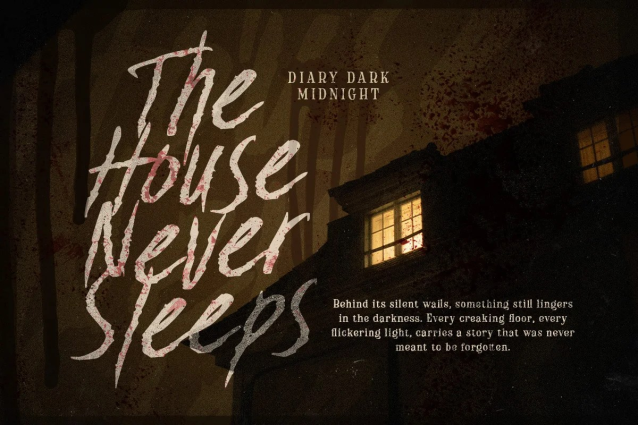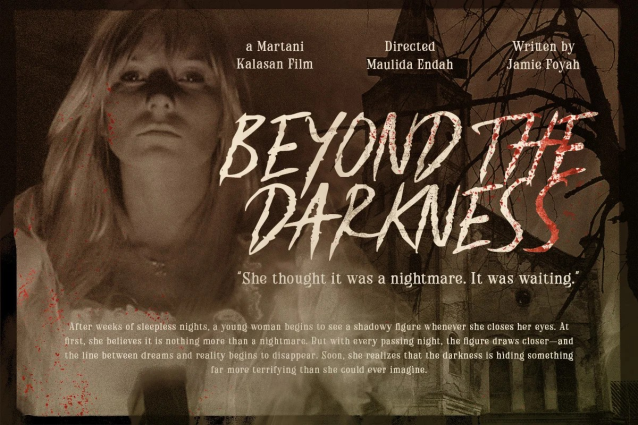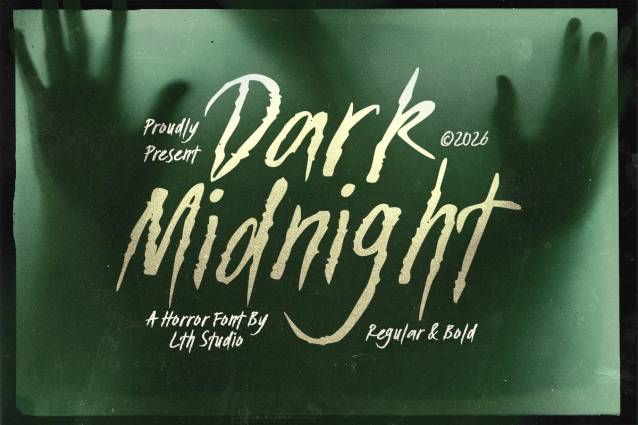
Dark Midnight Horror Raw Brush Font
Dark Midnight drips with tension, turning rough brush strokes into lettering that feels frantic, haunted, and impossible to ignore. Its sharp edges, uneven rhythm, and slashed forms give every word a restless energy, as if it were scrawled in the middle of a bad dream.